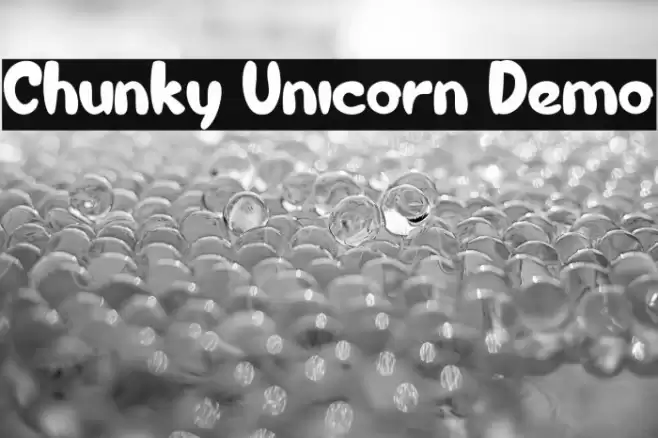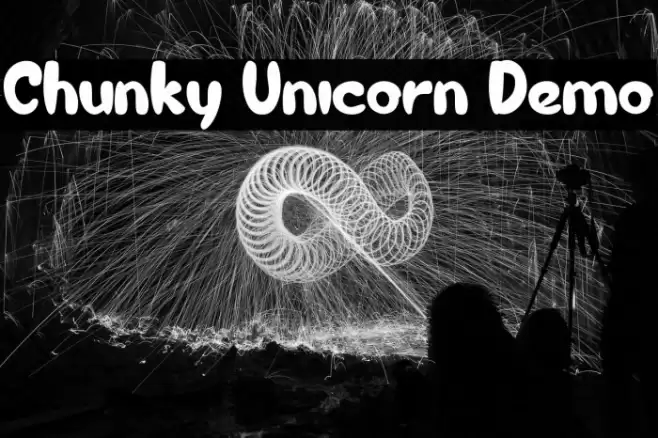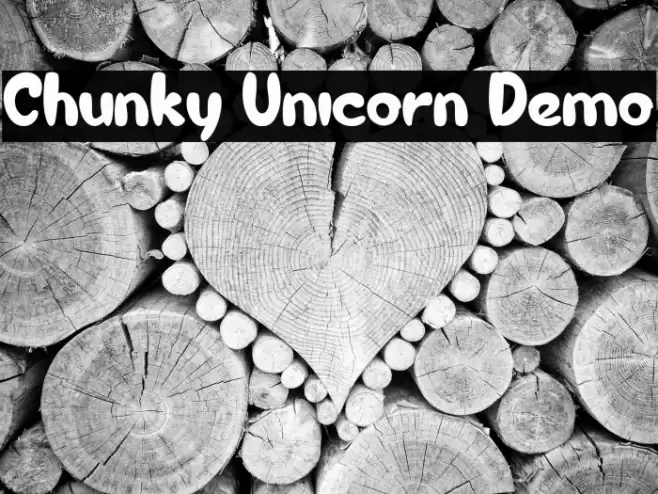
Chunky Unicorn Demo Font
Chunky Unicorn Demo Description
This font features a bold and playful style with thick, rounded strokes that give it a chunky appearance. The letters are closely spaced, creating a cohesive and unified look. The uppercase and lowercase characters maintain a consistent weight, contributing to the font's bold presence. Its whimsical and friendly design makes it suitable for projects that require a fun and approachable aesthetic. The font's unique style is characterized by its exaggerated curves and smooth lines, making it stand out in any design context.
A bold, playful font with thick, rounded strokes and a whimsical style from Uncategorized fonts.
- Proposed Projects: Ideal for children's books, playful branding, posters, and social media graphics.
- Character Spacing: Tight
- Overall Style: Playful, Whimsical